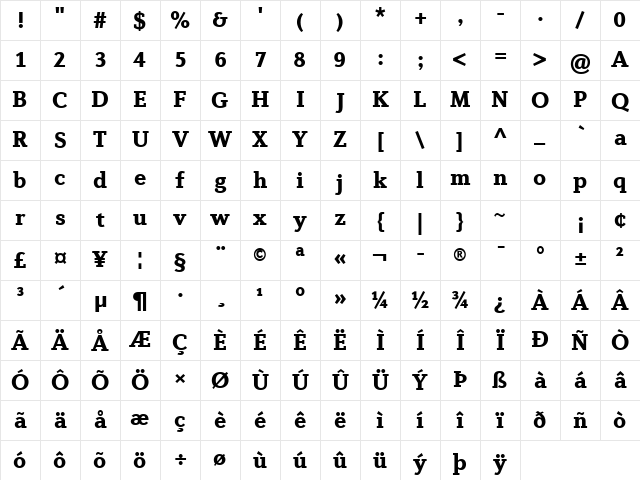
Diverda Serif Com Black
Designer: Daniel Lanz
Complete Diverda Serif Com Black glyph index. Displaying only characters natively supported by Diverda Serif Com Black font.
Design Context for Diverda Serif Com
Diverda Serif Com carries the refined structure of traditional serif typography, with bracketed terminals and considered proportions that communicate credibility and craft.
Pro Tip: Use Diverda Serif Com for editorial body copy and considered headline work. Pair with a neutral sans for UI elements or captions to create a classic hierarchy.